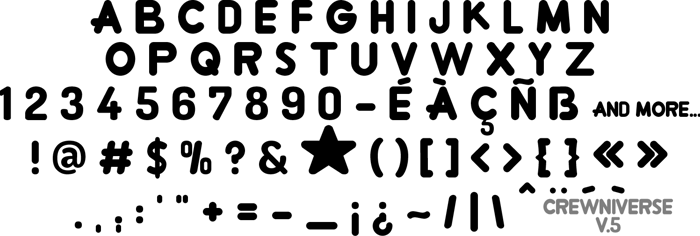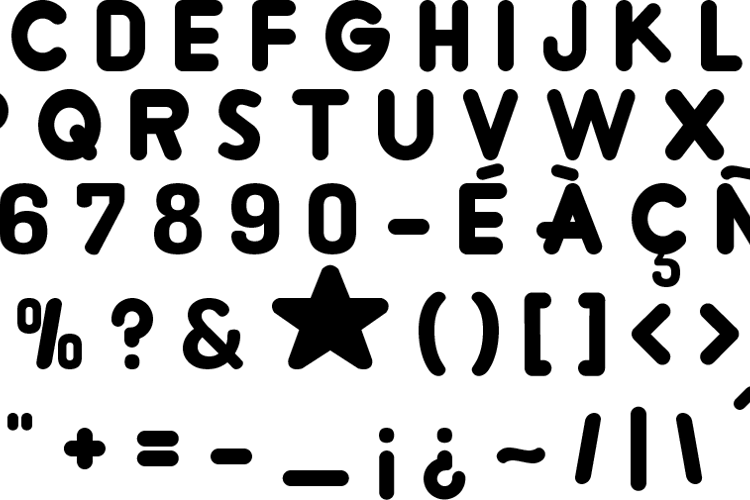
Crewniverse Font
Crewniverse Font V.5
Crewniverse is a font that replicates the one used for the title cards of the TV show Steven Universe(tm), as well as the logo of the Steven Crewniverse's Tumblr (hence the name, originally).
Changelog for V.5 (2016-8-19)
- Added a whoooole metric ton of accents;
- Added some more punctuation ( @ # % & () <> [] {} «» );
- Added some legal symbols or what not ( © ® ™ );
- Added a sharp S ( ß );
- Fixed a thing with P and R that I had never noticed before;
- Added some other stuff.
Goals for V.6 (?)
- To be frank, I think V.5 is gonna be the final version. We'll have to see! I might add Japanese and Greek symbols in the far future if I'm brave enough, but don't quote me on this. :^)
Changelog for V.4 (2016-6-04)
- FINALLY properly kerned the font;
- Added accents;
- Added inverted question and exclamation marks ( ¿ ¡ );
- Added quotation marks ( " );
- Added a few other things ( ` ´ ^ ¨ ~ _ ).
Goals for V.5 (or maybe V4.5)
- Add err I dunno, I'll see when I get there ¯\_(ツ)_/¯
To be honest, I think the font is pretty much done, but y'know there's always room for improvement.
Changelog for V.3 (2016-1-12)
- FINALLY added numbers;
- Added a hyphen ( - ).
Goals for V.4:
- Add quotation marks;
- Add accents.
Changelog for V.2 (2015-6-25)
- Added exclamation and question marks;
- Updated every other punctuation.
Goals for V.3 or V.4
- Add quotation marks;
- Add numbers (at least 2 and 3);
- Add accents;
- Add various special characters.
Changelog for V.1 (2015-6-13)
- Font was created;
- Added letters + some punctuation.
Goals for V.2
- Add exclamation and question marks;
- Add quotation marks;
- Possibly add numbers (at least 2 and 3);
- Possibly add accents on letters A, E, I, O, U and C;
- Might add some other special characters.
I love the inclusion of Latin Extended A! It really is something that more fonts should have.